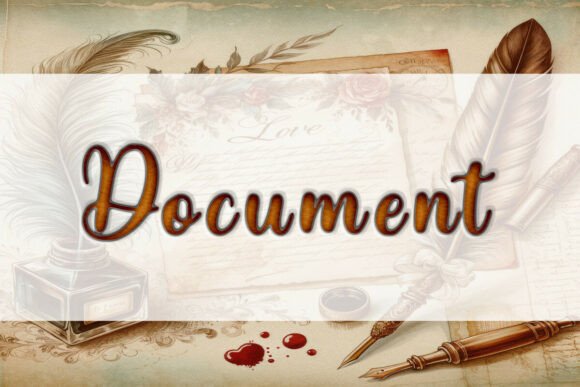
Unleash Your Creativity with Document Font: The Ultimate Choice for Innovative Designers
In the world of design, the right font can make all the difference. It’s not just about conveying a message; it’s about doing so with style, flair, and a dash of personality. For creative thinkers, designers, and crafters, finding the perfect font can be a game-changer. That’s where Document Font comes in – a versatile, stylish, and highly adaptable font that’s ideal for a wide range of projects. In this article, we’ll explore the many uses of Document Font and why it’s becoming the go-to choice for designers and crafters alike.
What is Document Font?
Document Font is a unique and stylish typeface that’s designed to make your creations stand out. Its distinctive look and feel make it perfect for use on a variety of materials, from fashionable tees and bold stickers to distinctive branding and immersive magazines. With Document Font, you can add a touch of sophistication and elegance to your designs, or use it to create bold and eye-catching statements.
Fashionable Tees and Bold Stickers
When it comes to designing for fashion, the font is just as important as the design itself. Document Font is the perfect choice for creating stylish and eye-catching tees, stickers, and other wearable items. Its bold and modern look makes it ideal for statement pieces that are sure to turn heads. Whether you’re designing for a client or creating your own merchandise, Document Font is a great way to add a professional touch to your work.
Distinctive Branding and Immersive Magazines
Branding is all about creating a consistent and recognizable identity for your business or product. Document Font can help you do just that. Its unique style and versatility make it perfect for use in logos, signage, and other marketing materials. And when it comes to creating immersive magazines, Document Font can help you craft engaging headlines and articles that draw readers in and keep them engaged.
Expanding Your Creativity with SVG Files, Greeting Cards, and Cricut Projects
But Document Font’s uses don’t stop there. It’s also perfect for use with SVG files, greeting cards, and Cricut projects. With Document Font, you can create stunning and intricate designs that can be used to personalize gifts, decorations, and other items. Whether you’re a crafter, a DIY enthusiast, or a professional designer, Document Font is a great way to add a touch of elegance and sophistication to your projects.
Eye-Catching Posters and Engaging Social Media Content
In today’s digital age, it’s more important than ever to create eye-catching and engaging content that stands out from the crowd. Document Font is the perfect choice for creating stunning posters, social media graphics, and other visual content that grabs attention and drives engagement. Its bold and modern look makes it ideal for use in advertising, marketing, and other promotional materials.
Why Choose Document Font?
So why choose Document Font over other fonts? Here are just a few reasons why it’s becoming the go-to choice for designers and crafters:
- Versatility: Document Font can be used for a wide range of projects, from fashion and branding to magazines and social media.
- Style: Its unique and modern look makes it perfect for creating eye-catching and stylish designs.
- Ease of use: Document Font is easy to read and works well in both digital and print formats.
- Customization: With Document Font, you can create a wide range of custom designs and variations to suit your needs.
In conclusion, Document Font is the perfect choice for creative thinkers, designers, and crafters who want to add a touch of style and sophistication to their projects. Its versatility, style, and ease of use make it ideal for a wide range of applications, from fashionable tees and bold stickers to distinctive branding and immersive magazines. Whether you’re a professional designer or a DIY enthusiast, Document Font is a great way to unleash your creativity and take your designs to the next level.